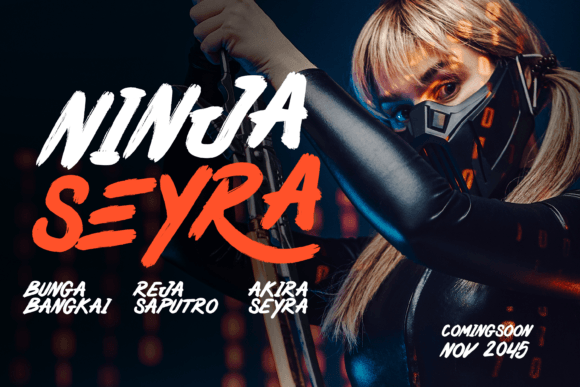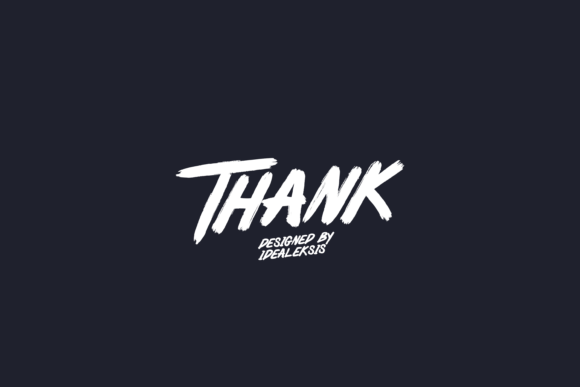
Introduction to Seyra Font
Have you ever found yourself scribbling notes in a journal, only to discover that your handwritten words have transformed into a beautiful piece of art? For designers, this moment is not just a happy accident, but a spark of inspiration that can lead to a high-quality design project. It’s in these moments that we realize the beauty of human touch and the value of a well-crafted font.
One such font that embodies this essence is the Seyra Font, a captivating brush script font that exudes a sense of fluidity and artistic flair. With its distinctive calligraphic strokes, the Seyra Font delivers an elegant and handwritten appearance that is sure to elevate any design project.
Key Features of Seyra Font
- High-quality design resource suitable for creative projects, including logos, branding, and advertising materials.
- Comes in a single weight, ideal for projects requiring a clean and minimalist aesthetic.
- Designed to be highly legible, making it perfect for use in body text, headings, and titles.
Honest Review: Seyra Font
I recently came across the Seyra Font and I must say, it’s a great addition to any designer’s toolkit. This high-quality font is perfect for creative projects that require a modern and elegant look.
One of the things that stood out to me about Seyra Font is its transparent background, which makes it super easy to use in various design scenarios. Whether you’re working on a logo, poster, or brochure, this font is sure to impress.
- Only a limited number of font weights are available
- Not suitable for projects that require a bold, dramatic font
Overall, I’m really impressed with the Seyra Font. It’s a great resource for designers who want to add a touch of elegance to their creative projects. With its high-quality design and transparent background, it’s sure to become a favorite in my toolkit.
Seyra Font is a high-quality, elegant font that can be used in various creative projects. It features a transparent background, making it versatile for different design applications.
Seyra Font is suitable for various design projects, including business cards, brochures, and social media graphics. It’s also a great choice for wedding invitations, party decorations, and other creative endeavors.
Seyra Font is a solid-colored font, which means it doesn’t have a transparent background. However, its clean and simple design makes it easy to pair with images or backgrounds, allowing you to create a seamless visual experience for your creative project.